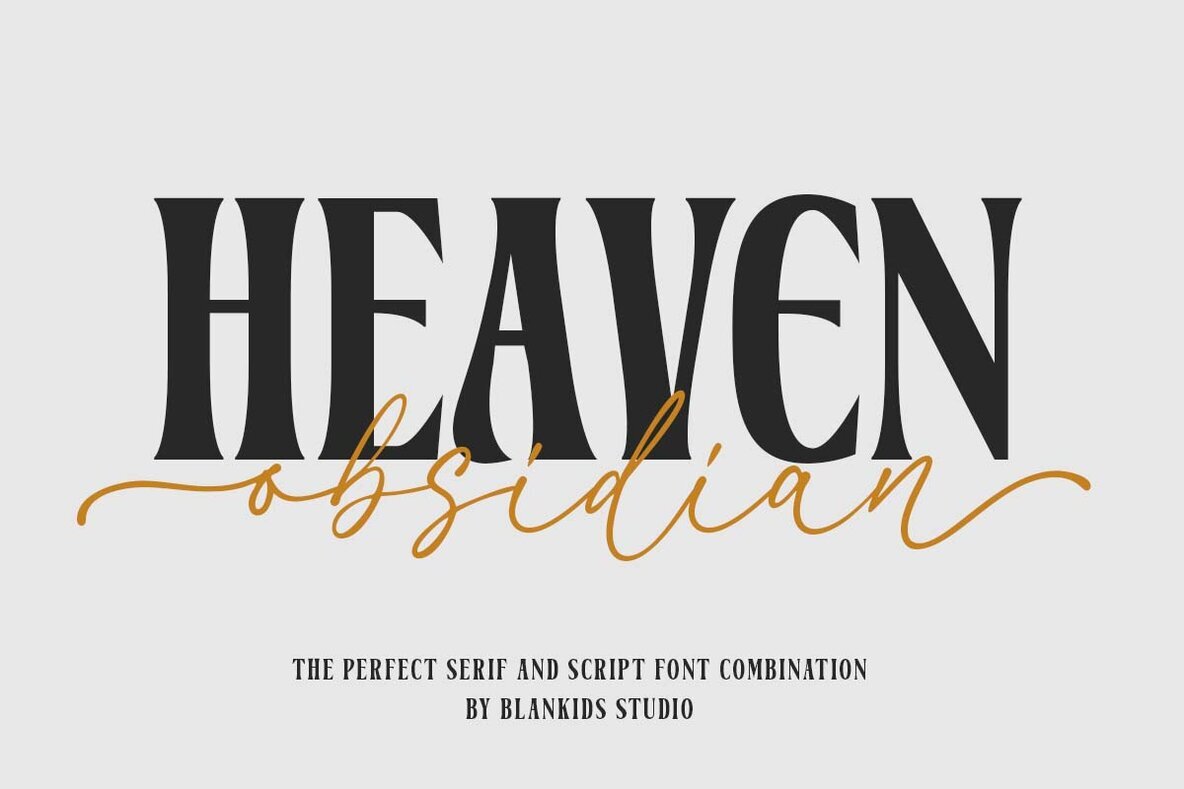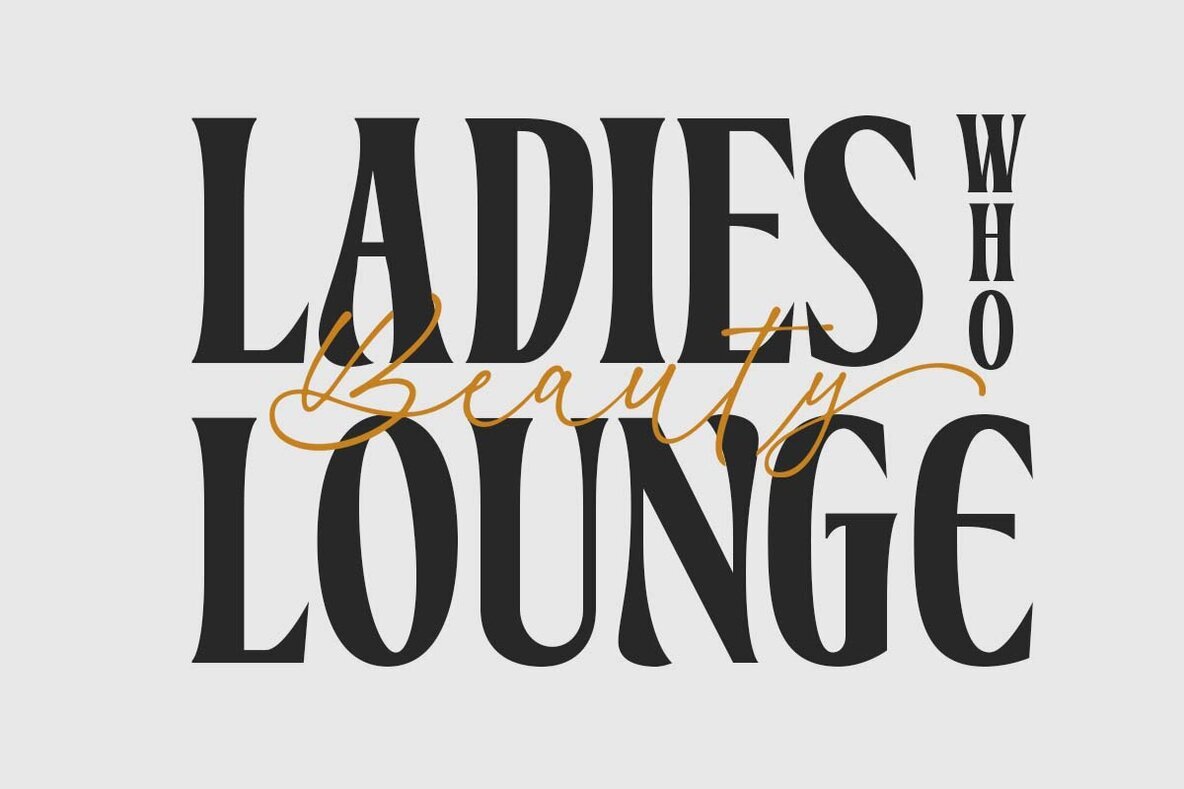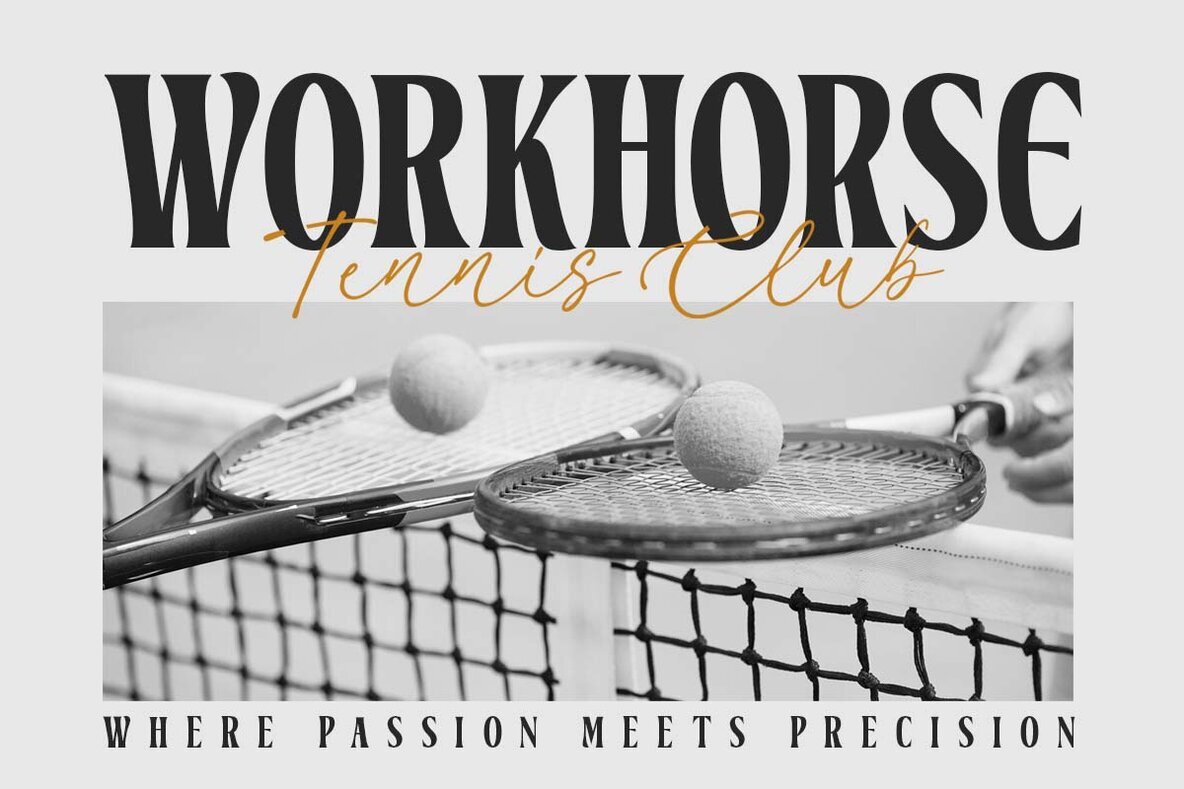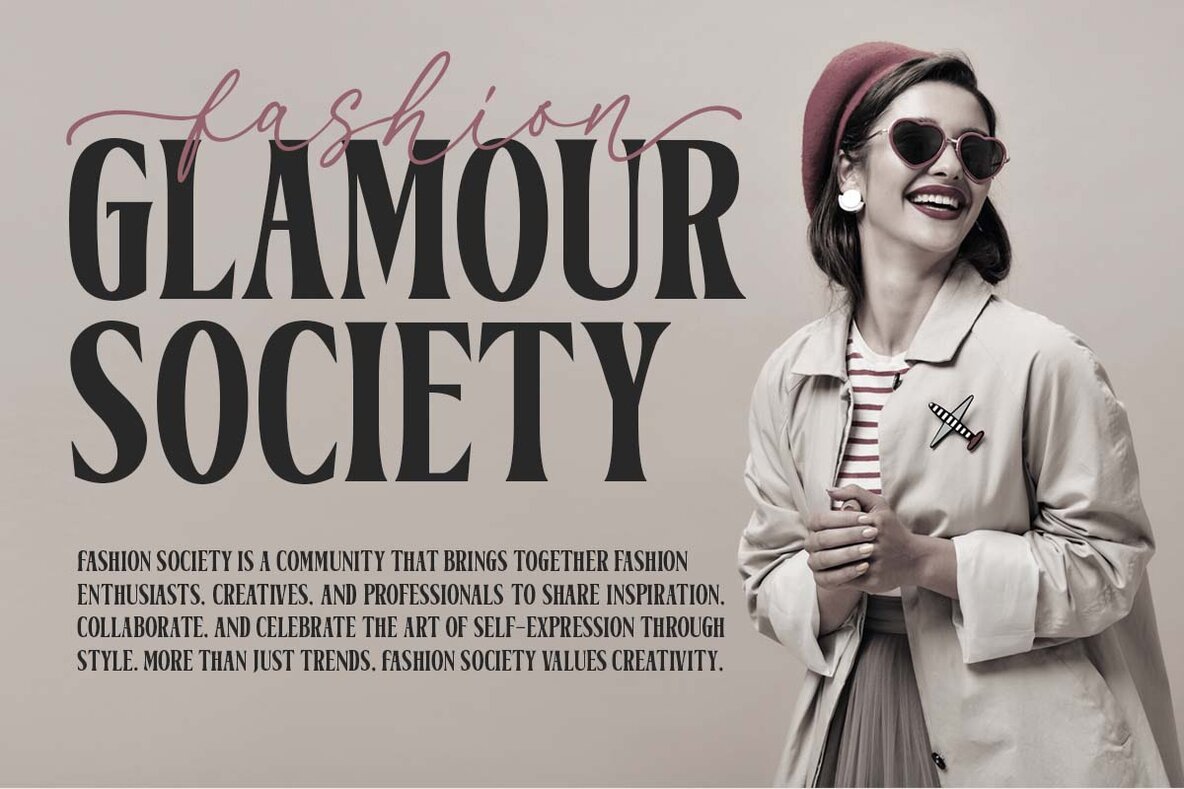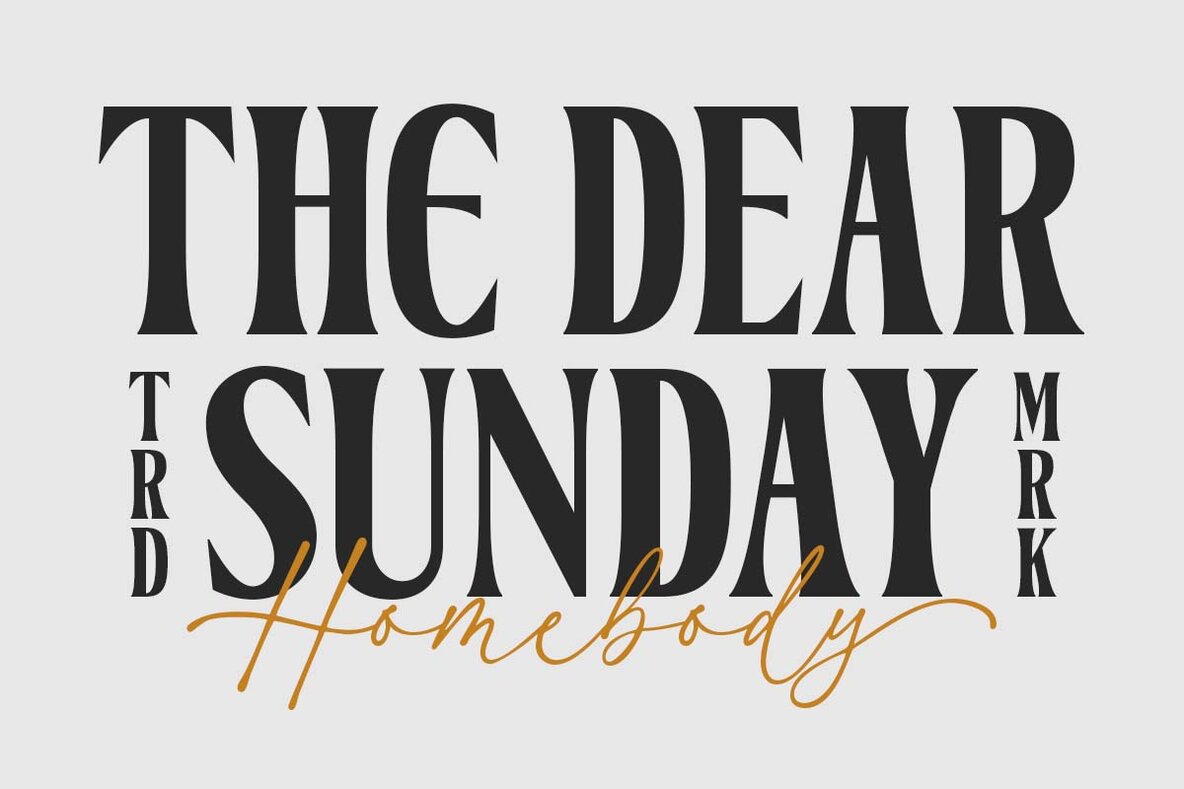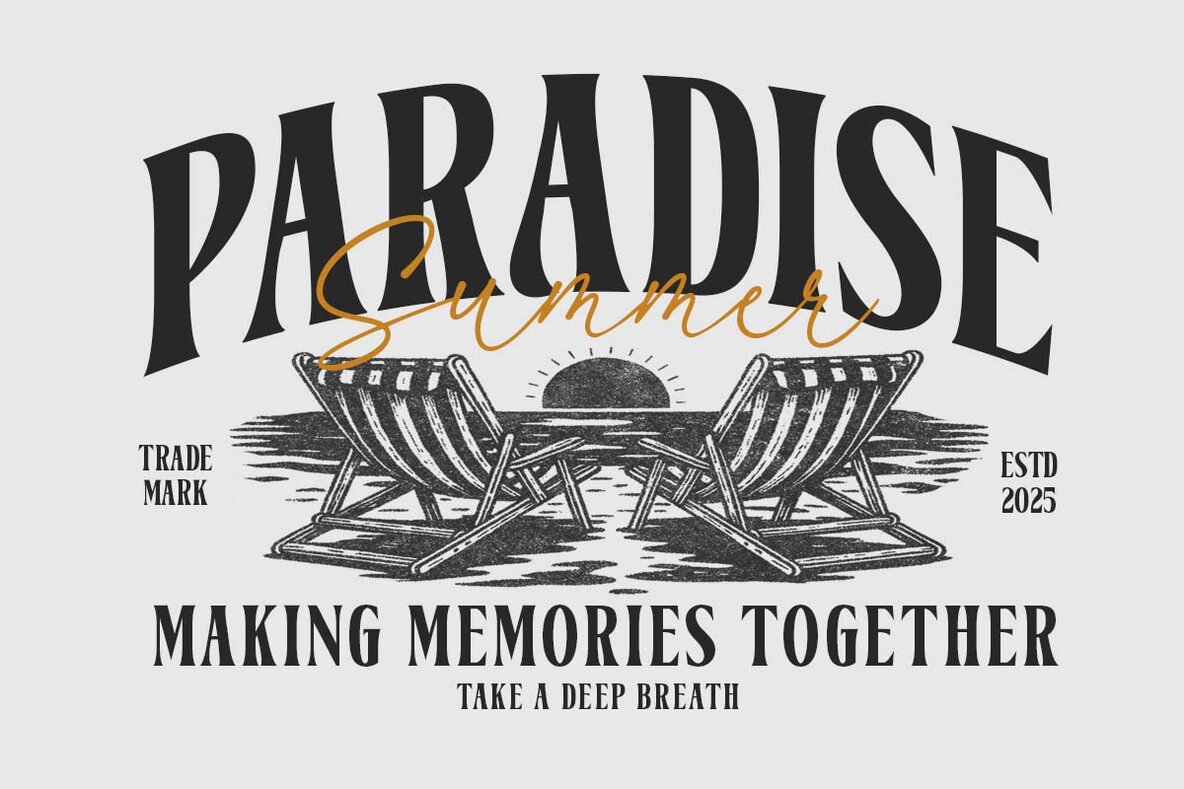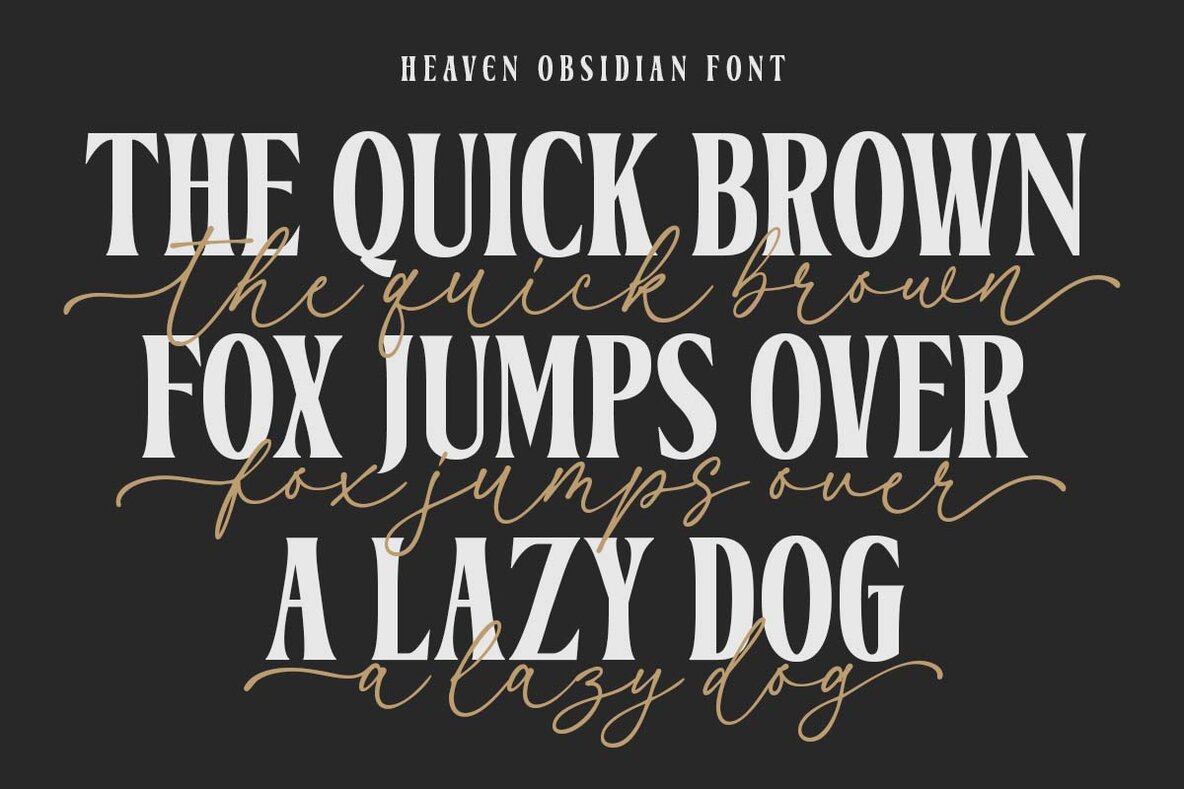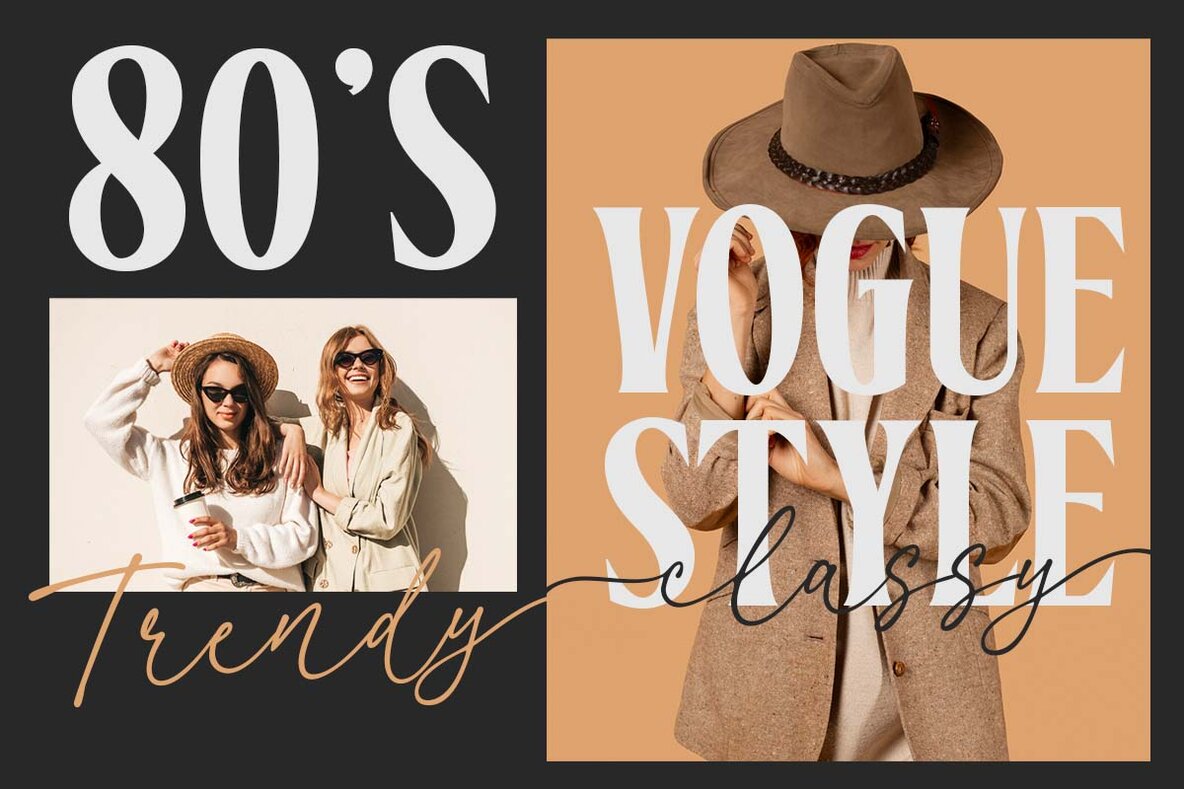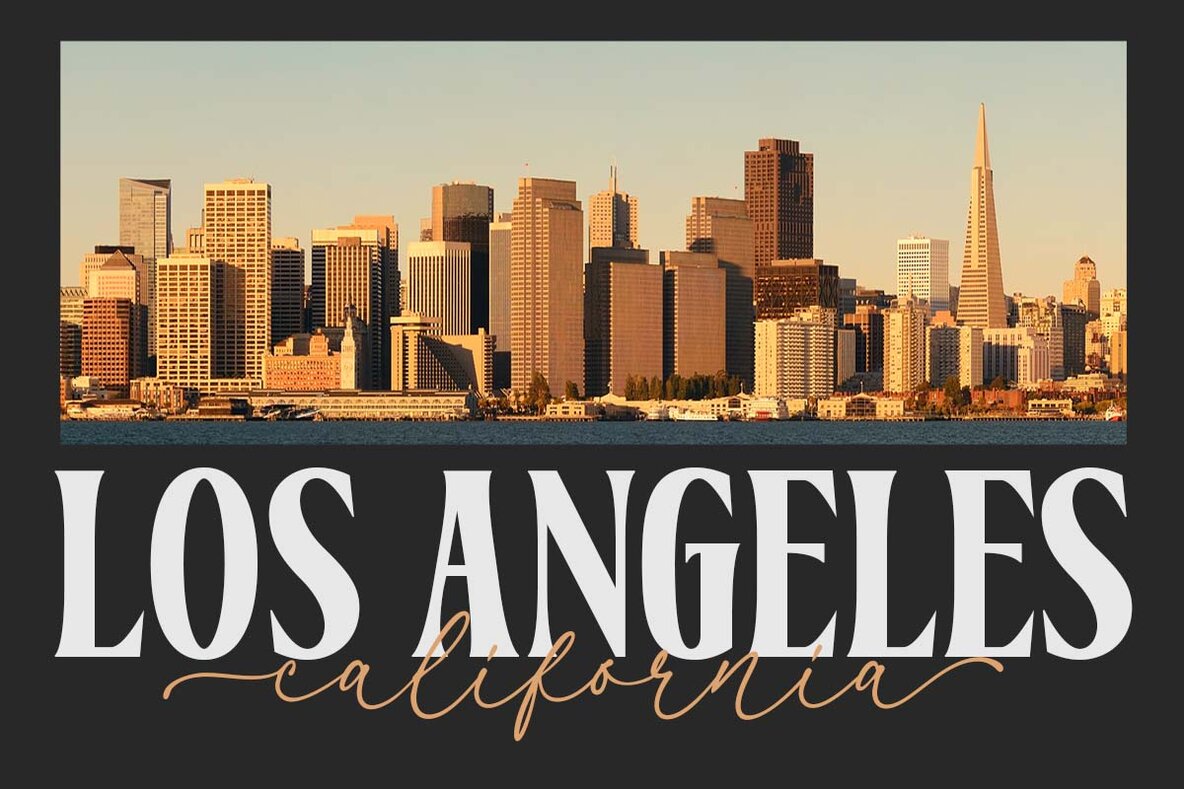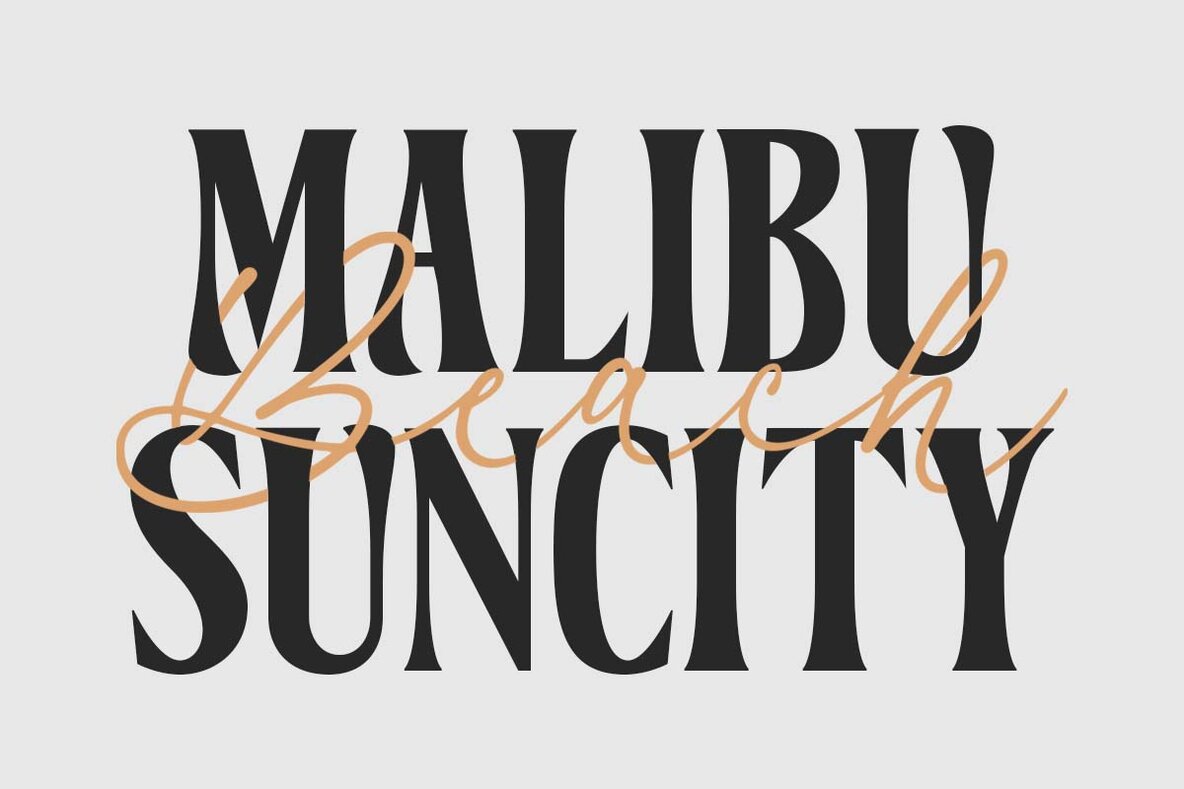
Heaven Obsidian Font
Heaven Obsidian Script
Heaven Obsidian Serif
Heaven Obsidian blends the refined characteristics of serif fonts with the flowing elegance of script, offering a versatile tool for designers across a spectrum of branding projects. Its vintage style adds sophistication to logotypes, watermarks, posters, and product packaging. Capitalize on its unique aesthetic to enhance your creative endeavors.Heaven Obsidian: A Vintage Serif and Script Fusion
Heaven Obsidian is a staple for those looking to incorporate a touch of the past into modern design projects. Enjoy exploring its potential in bringing your creative visions to life.